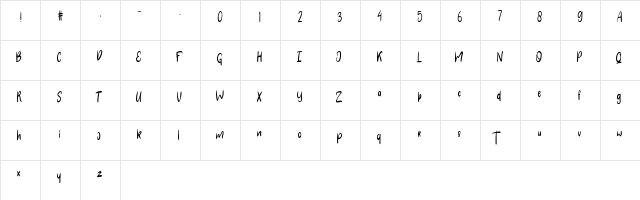
CLARRA Demo Normal
| Foundry | Crump Hand |
| Designer | Stefie Justprince |
Design Context for CLARRA Demo Typeface
CLARRA Demo takes a measured approach to typography — its balanced proportions and neutral character make it a reliable workhorse for both digital and print work.